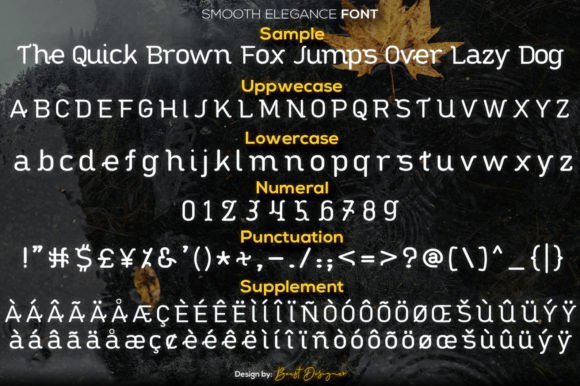
Introduction to Smooth Elegance Font
Have you ever stared at a blank canvas, desperately searching for the perfect font to bring your creative project to life? That’s exactly where I was when I discovered the Smooth Elegance Font. Its elegant and casual sans serif style immediately caught my attention, and I knew I had found the perfect design resource.
What sets the Smooth Elegance Font apart from other fonts is its incredibly distinct and timeless style, making it a valuable asset for designers. With its smooth curves and clean lines, this font is perfect for creating eye-catching logos, branding, and quotes that demand attention. Plus, it’s free to download, making it an accessible addition to any design arsenal.
Whether you’re working on a high-quality design project or simply looking to elevate your personal brand, the Smooth Elegance Font is sure to deliver. Its transparent background and versatile style make it a great choice for any creative endeavor, from business cards to social media graphics. Get ready to fall in love with this elegant font and take your designs to the next level!
Key Features of Smooth Elegance Font
• The Smooth Elegance Font is a high-quality design resource ideal for creative projects requiring a touch of sophistication.
• This font features a transparent background, making it easy to use with any image or design element.
• With a resolution of 300 DPI, this font is suitable for high-resolution printing and digital applications.
• The font size ranges from 12pt to 72pt, making it versatile for use in various design contexts, from small captions to large headings.
• The unique characteristics of the Smooth Elegance Font include its sleek, modern design and refined details, making it a standout choice for designers seeking a sophisticated look.
Honest Review: Smooth Elegance Font
I recently had the chance to try out the Smooth Elegance Font for a creative project, and I must say it was a great addition to my design resource library.
• ✨ High-quality design: The Smooth Elegance Font has a beautiful, elegant look that’s perfect for formal or professional designs.
• ✨ Transparent background: This allows for easy layering and blending with other design elements, making it a versatile choice for various creative projects.
However, there are some limitations to keep in mind:
• ⚠️ Limited font styles: The Smooth Elegance Font only comes in a few different styles, which may limit its usability in certain situations.
• ⚠️ Not suitable for bold text: The font’s elegant design may not be the best choice for bold or heavy text, as it can become difficult to read.
Overall, I’m impressed with the Smooth Elegance Font’s design quality and versatility. While it may not be the best choice for every project, it’s a great addition to any design resource library.
The Smooth Elegance Font is a high-quality design resource ideal for creative projects requiring sophistication and refinement. With its transparent background, this font can be easily integrated into various design platforms.
Tips for Getting the Most Out of Smooth Elegance Font
Experiment with font sizes, colors, and styles to achieve the desired effect. Pair the font with high-quality images to enhance the overall aesthetic of your design.
The Smooth Elegance Font is suitable for various design projects, including business cards, brochures, and website headers. Its elegant design makes it an ideal choice for creating professional and sophisticated materials.
What is the recommended font size and spacing for the Smooth Elegance Font?
The recommended font size for the Smooth Elegance Font is between 12pt and 24pt, depending on the specific design context. For optimal readability, we recommend using a font size that is clear and legible. Additionally, you can adjust the line spacing to suit your design needs. A standard line spacing of 1.2 to 1.5 times the font size is recommended.